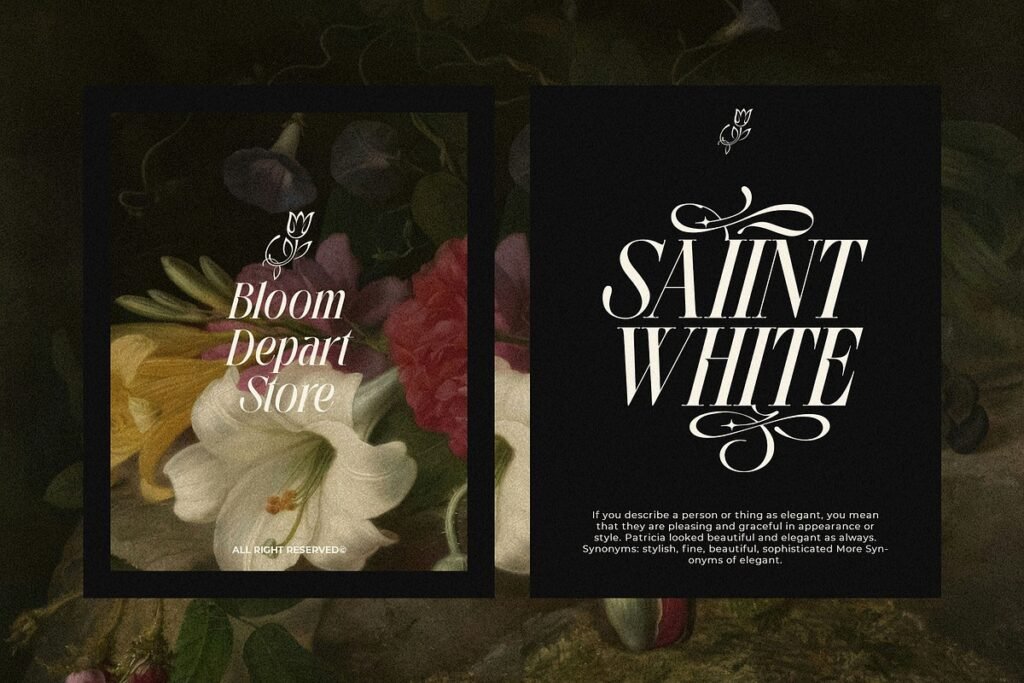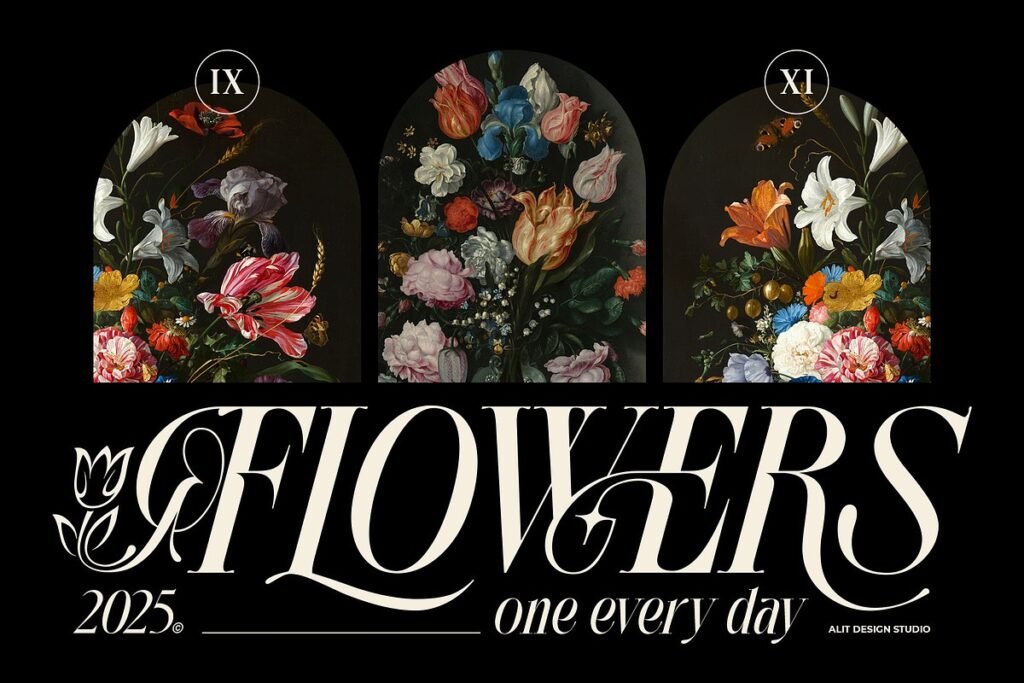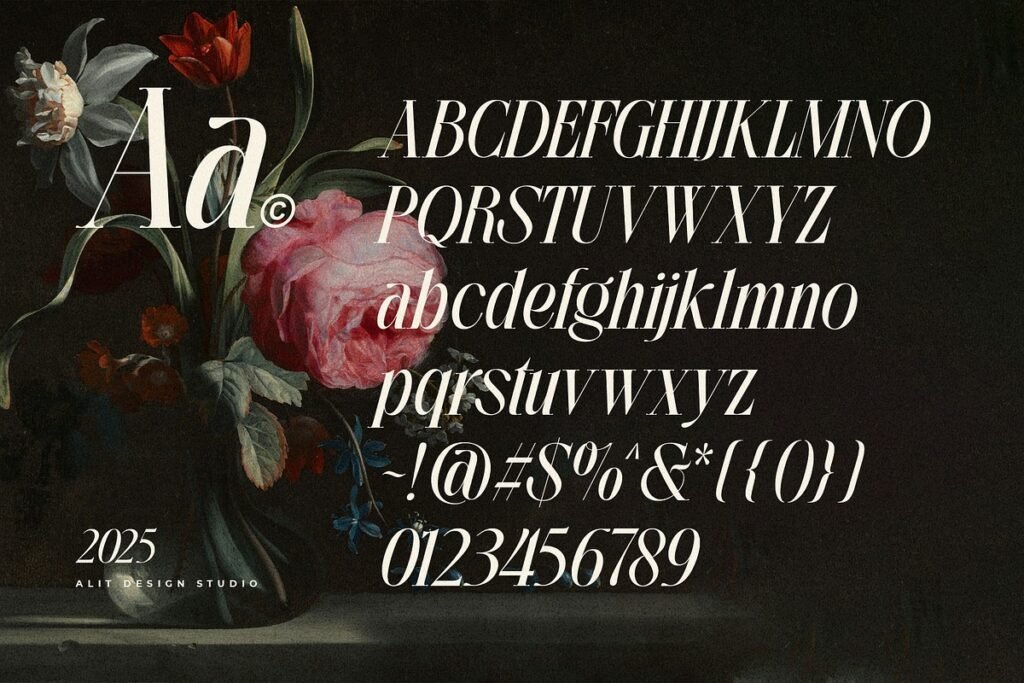
A Nature-Inspired Slanted Serif with Script Elegance and Decorative Flourish Nothina Mount Typeface.
Nothina Mount Typeface Step into a world where typography meets fine art. Designed with a distinctive slanted posture, flowing curves, and expressive swashes that bring a sense of romantic sophistication to any project.Its beautifully exaggerated serifs design.
. Floral motifs, ornate ligatures, beauty flower,and calligraphy-style terminals make this typeface ideal for high-end branding, editorial headlines, wedding suites.
✦ Font Features
898 Elegant Glyphs: A robust character set that includes uppercase & lowercase letters, numerals, punctuation, stylistic alternates, and decorative ligatures.
Swashes & Ornaments: Integrated script-like swashes and floral elements enhance each word with a poetic, flourishing detail.
Multilingual Support: Includes extended Latin characters for multilingual versatility.
Luxury branding and packaging
Wedding invitations and stationery
Fashion lookbooks and editorial layouts
Perfume, beauty, and skincare products
Logo design with a graceful, signature feel
Nature-inspired posters and romantic displays
Nothina Mount reflects the studio’s dedication to detailed craftsmanship and artistic storytelling through type. Every flourish and curve is meticulously crafted to ensure your designs radiate personality, romance, and timeless charm.
Bring nature, elegance, and expressive beauty into your design work with Nothina Mount Typeface a font that blossoms on the page.